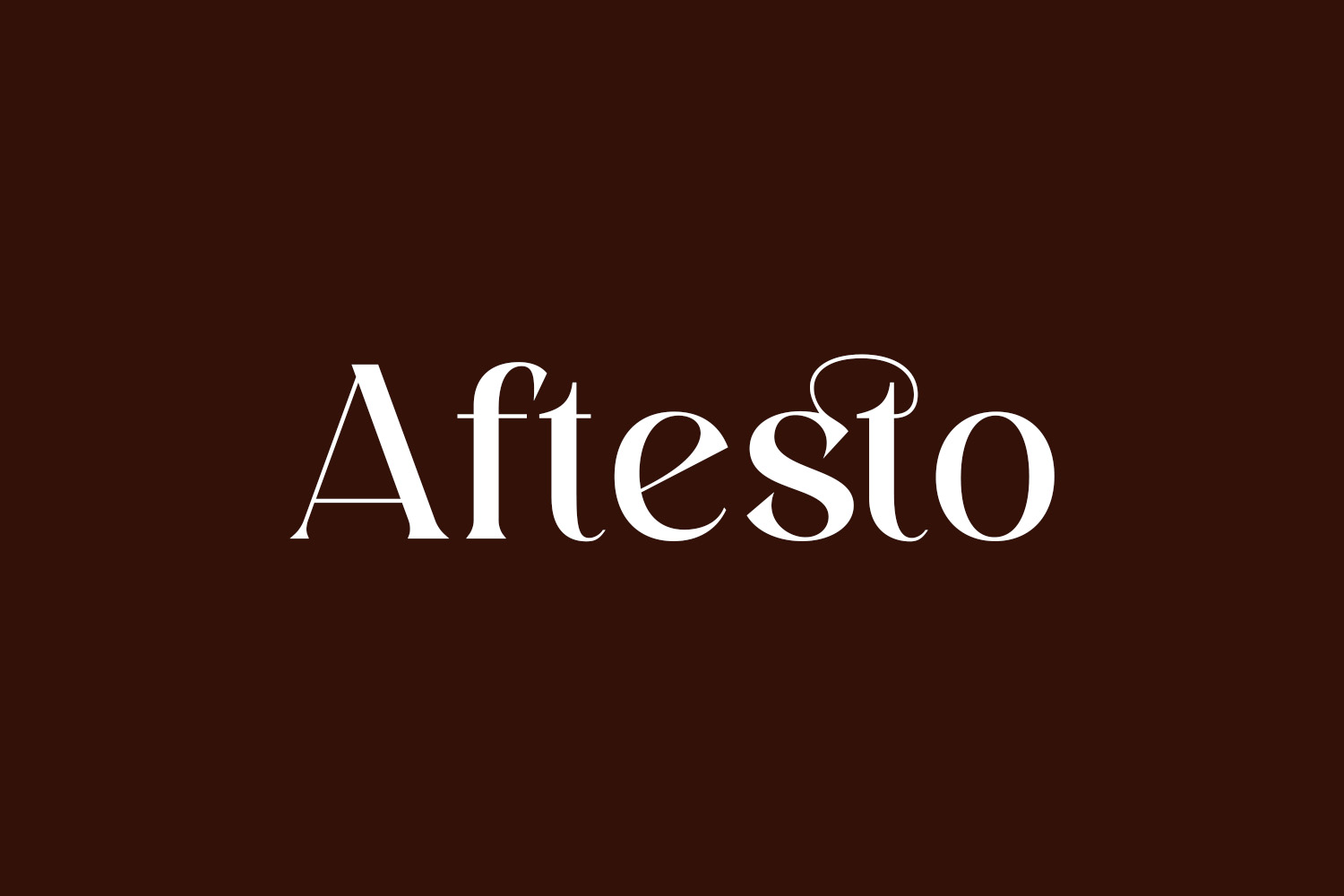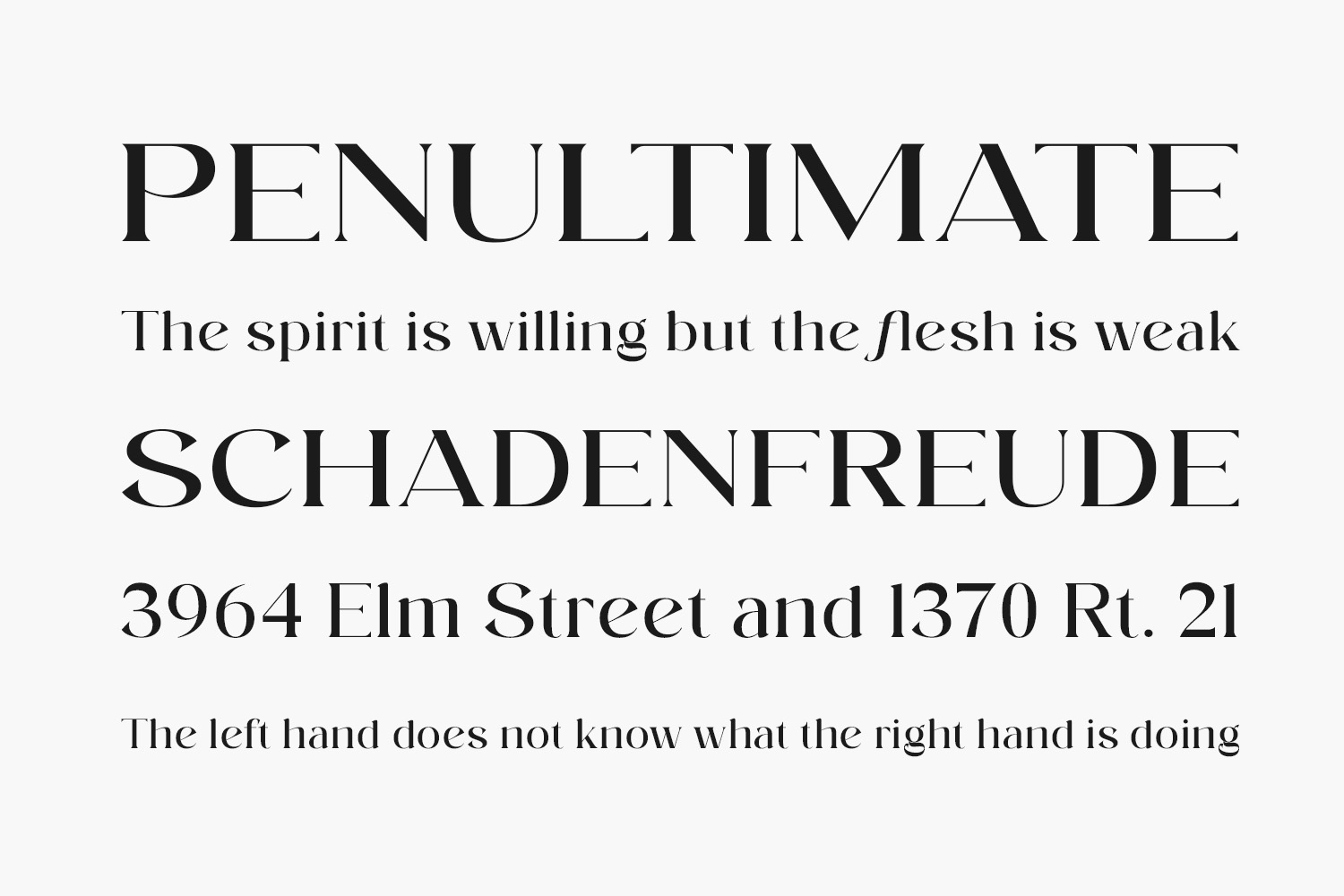
Aftesto Free Font Family exudes a distinct elegance, with its graceful serifs and refined lines. Each letter is crafted with care, imbued with a sense of sophistication and poise. The font feels timeless and classic, evoking a sense of tradition and history. Yet at the same time, it is fresh and modern, with a versatility that allows it to adapt to a wide range of design styles. Whether you are looking to add a touch of refinement to your branding, or seeking a font that will elevate your design work to the next level, Aftesto Free Font Family is an excellent choice.